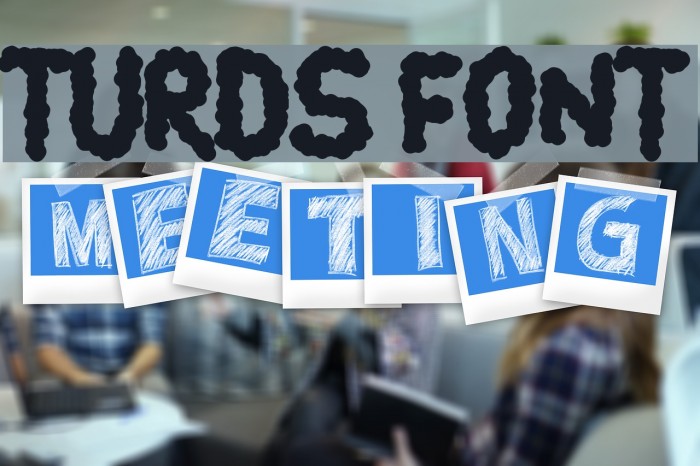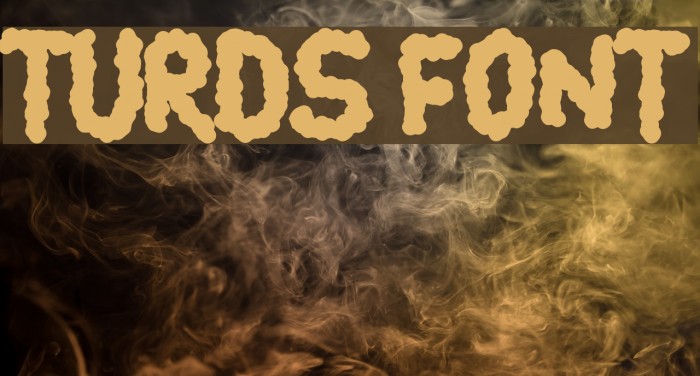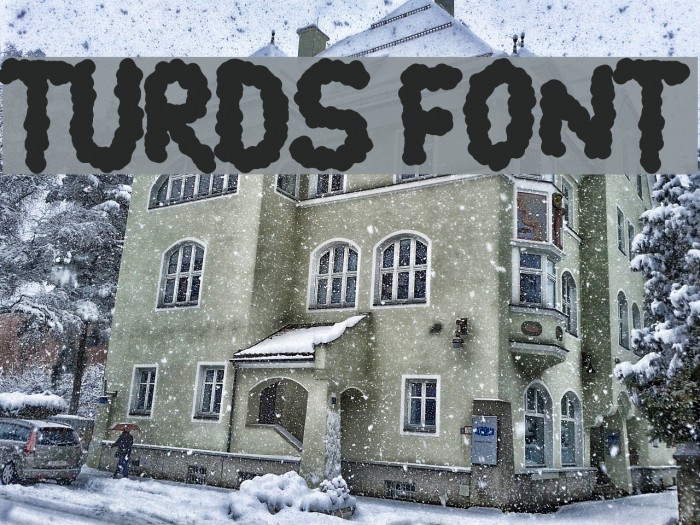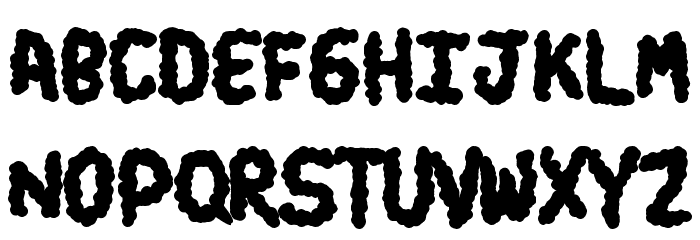
turds Font
turds Description
This font features a playful and bold design, characterized by its bubbly, irregular shapes that give it a unique and whimsical appearance. The letters are thick and rounded, resembling a cloud-like or cartoonish style. This font is highly decorative, making it stand out with its quirky and fun aesthetic. The characters are consistently bold, with a uniform thickness throughout, and the spacing between them is relatively tight, enhancing its cohesive look. The font's style is distinctly modern and playful, suitable for creative and informal applications.
A playful, bold, and bubbly font with a whimsical, cartoonish style from Uncategorized fonts.
- Proposed Projects: Ideal for children's books, comic strips, playful branding, party invitations, and any project requiring a fun and informal touch.
- Character Spacing: Tight
- Overall Style: Playful, Modern
- Use Case: Logos, Headlines, Posters, Invitations